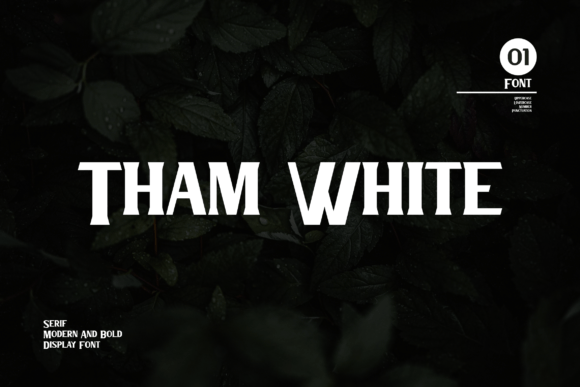
Enter the realm of digital sophistication with Tham White, the peerless serif font poised to transform your creative visions into captivating realities. As a modern marvel, Tham White stands as a testament to the fusion of classic elegance and contemporary flair. Its sharp, clean lines evoke a sense of unwavering confidence, while its commanding presence captivates the eyes, demanding attention.
Designed meticulously by the visionary kalingga.albert, Tham White is not merely a font; it is an instrument of artistic expression, a conduit through which your ideas take flight. Its meticulously crafted curves and angles reflect a deep understanding of visual harmony, striking an exquisite balance between tradition and innovation.
As the embodiment of modern aesthetics, Tham White possesses an inherent magnetism, drawing viewers into the heart of your designs. Harness its power to craft eye-catching headlines that leap off the screen, leaving an indelible mark on the minds of your audience. Its commanding presence is equally suited for logos, demanding recognition and establishing a lasting legacy for your brand.
Whether you seek to evoke a sense of timeless elegance or inject a touch of contemporary edge, Tham White stands ready to elevate your creative endeavors. Its versatility extends to a wide spectrum of design projects, from sleek brochures and presentations to sophisticated websites and social media graphics.
With Tham White as your font of choice, you unlock a world of possibilities, empowering you to forge connections, captivate imaginations, and create a lasting impact. Its timeless appeal ensures that your designs will endure, transcending fleeting trends and remaining relevant for years to come.
Immerse yourself in the world of Tham White and let its captivating charm ignite your creativity. Experience the transformative power of a font that breathes life into your vision, turning mere words into evocative masterpieces.